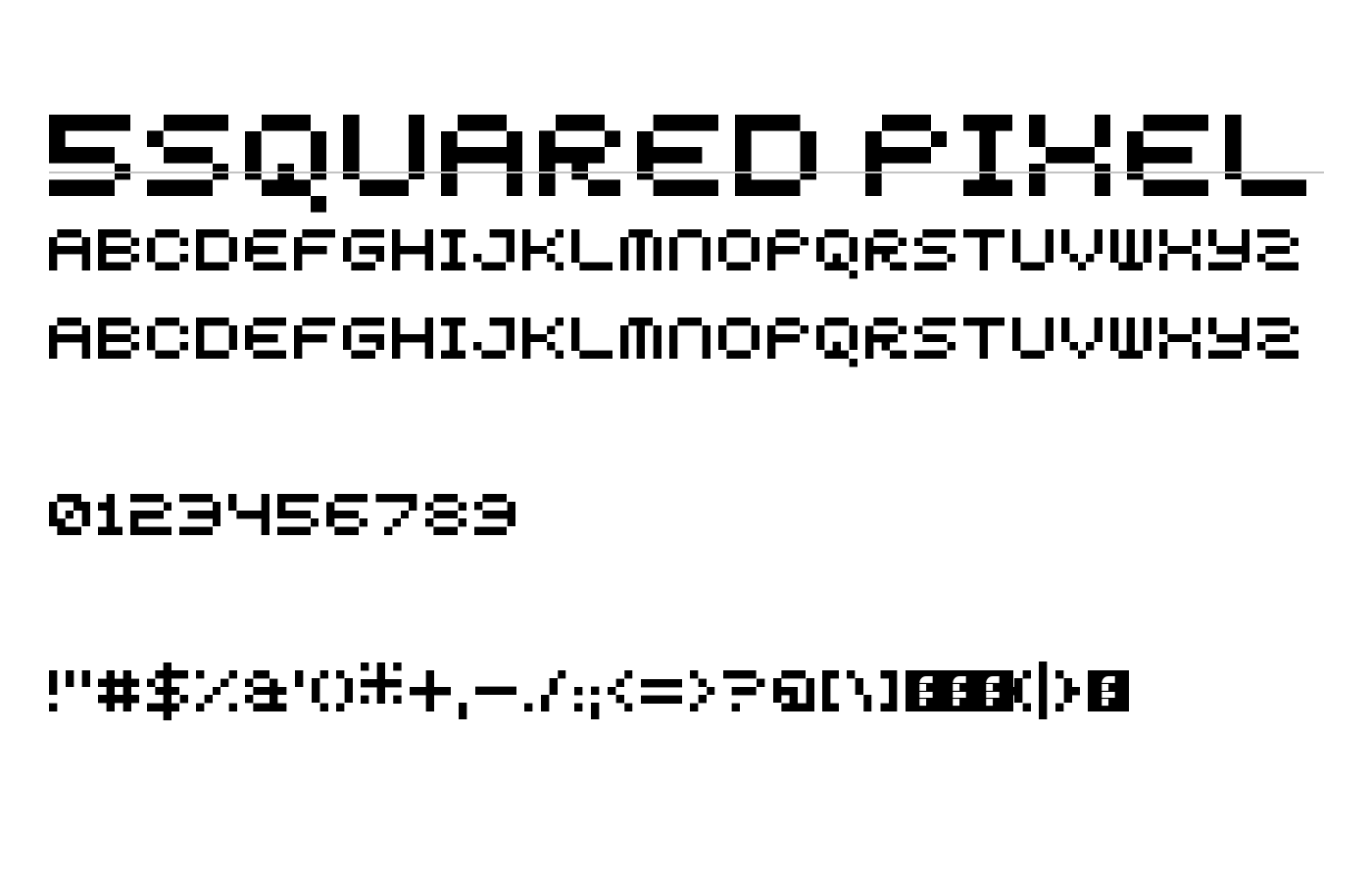
5squared pixel is a bold, geometric sans serif font designed with a blocky, pixelated style reminiscent of early digital displays and retro video games. Its consistent stroke weight, square edges, and clear, monospaced letterforms give it a techy, nostalgic feel perfect for gaming, digital art, and screen-based projects. This font works well for headlines, logos, and branding that seek a modern yet vintage pixel aesthetic.
5squared pixel Font
About 5squared pixel Font
| Font family | 5squared pixel Font |
| Designer | Piratype |